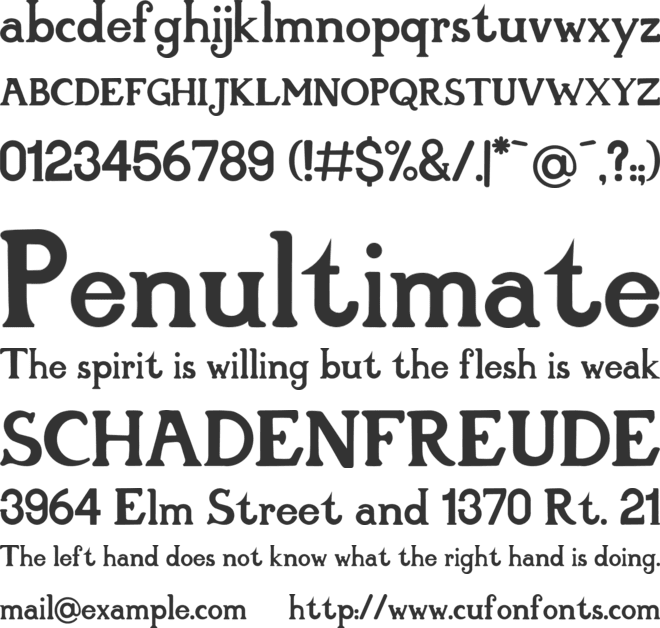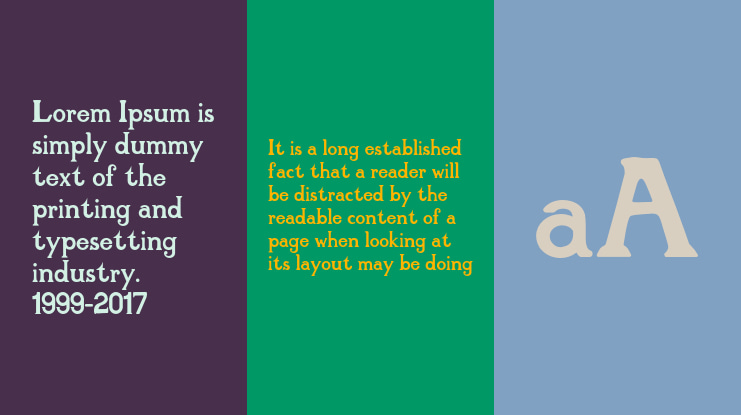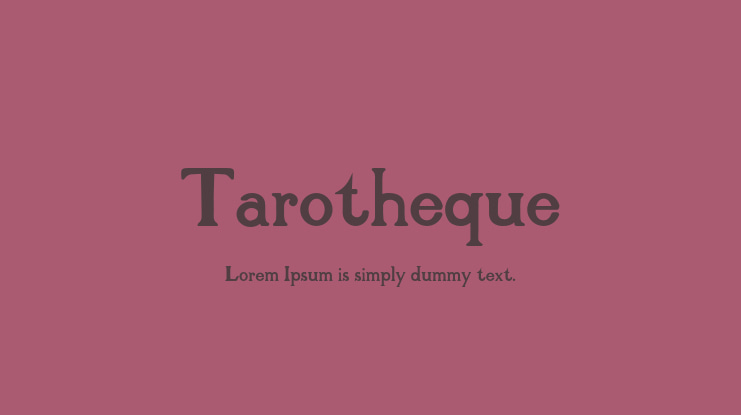
Tarotheque Font
Hi there! I created this font loosely based on the font of the Rider-Waite Tarot Deck from 1910, which is now in the public domain. I believe it would be an excellent choice for anyone working with classic image material or anything related to divination and fortune telling.